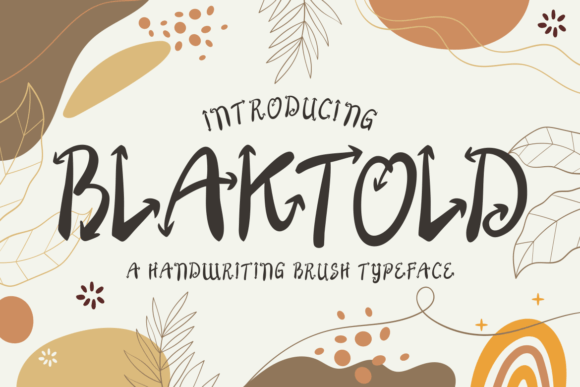
Embark on a typographic odyssey with Blaktold, the decorative font that ignites creativity and transforms your designs into captivating masterpieces. Immerse yourself in a realm of limitless possibilities, where your imagination takes center stage and your words dance across the screen with an allure like never before.
Blaktold is not merely a font; it's an artistic expression that empowers you to craft stunning visual narratives. With its bold and distinctive character, Blaktold commands attention, leaving an indelible mark on the hearts and minds of your audience. Whether you're a seasoned designer or just starting your typographic journey, Blaktold is your steadfast companion, guiding you towards design excellence.
Picture this: your designs come alive with the vibrancy and personality of Blaktold, captivating your audience from the very first glance. Your logos, posters, movie titles, and album covers radiate a magnetic charm that draws people in, compelling them to engage with your message. Blaktold is the secret weapon that elevates your designs to extraordinary heights, turning them into unforgettable experiences.
But Blaktold's allure extends far beyond its aesthetic appeal. It's a font that speaks to the soul, evoking emotions and stirring hearts. Its intricate details and expressive curves dance across the page, whispering stories and painting pictures that resonate with your audience on a profound level.
With Blaktold, you have the power to transform mundane words into captivating expressions, to ignite imaginations and leave a lasting impact. Its versatility knows no bounds, adapting seamlessly to a myriad of projects, from eye-catching displays and captivating clothing designs to awe-inspiring movie scenes and thought-provoking posters. Blaktold is your artistic chameleon, effortlessly blending into any creative landscape, adding a touch of magic wherever it goes.
So, embrace the allure of Blaktold, the decorative font that sets your designs ablaze with creativity and captivates your audience with its enchanting charm. Let your imagination run wild as you explore the boundless possibilities that await you. Blaktold is more than just a font; it's an open invitation to unleash your creative genius and leave an indelible mark on the world.